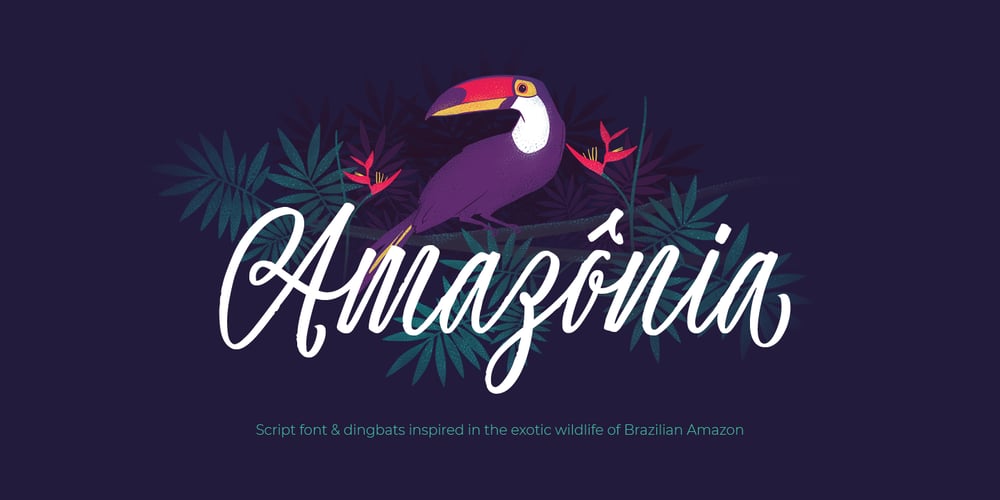
Amazônia Font Family was designed by Sofia Mohr, Sebastián Águila and published by Sofia Mohr. Amazônia contains 1 styles and family package options. Amazônia is a multidisciplinary design project that joins type design, illustration and web design with the whole purpose of creating conscience about the threaten wildlife of the Brazilian Amazon rainforest. The main element of this typographic system is Amazônia Script, a type design inspired in the exotic wildlife of the Amazon. Completely drawn in brush pen by Sofia Mohr, it’s a versatile font that contains 762 slightly rugged and condensed glyphs, with fast and curved strokes, swashes (for capital and lower case letters) and alternate characters. It also includes a decorative variant: Amazônia Life, a font design developed by designer Sebastián Águila, that contains a set of icons representing endangered animals of the Amazon rainforest. It includes 52 animal dingbats, with stylistic alternates for dark background use, making it a 104 glyphs font. As a complementary element to the font system, a set of illustrations were developed by Soledad Águila and coloured by Sebastián Águila that are used in the specimens and graphic support material.